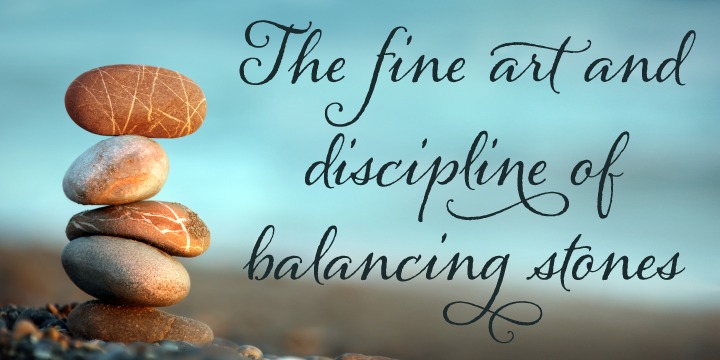
Alana Pro can be referred to as a natural looking, semi-connected script face. This is based on hand lettering and a very friendly font. It is capable of imparting a beautiful transition from casual to formal. It also holds its original hand drawn, slightly rough look and feel. The font also features about 341 alternates that include two additional uppercase letter sets and hundreds of alternate lowercase letters.
These are the features that make this font a highly versatile option. It can add life to any writing project through its 62 whimsical ornaments, designed specifically to synchronize with Alana’s unique style.